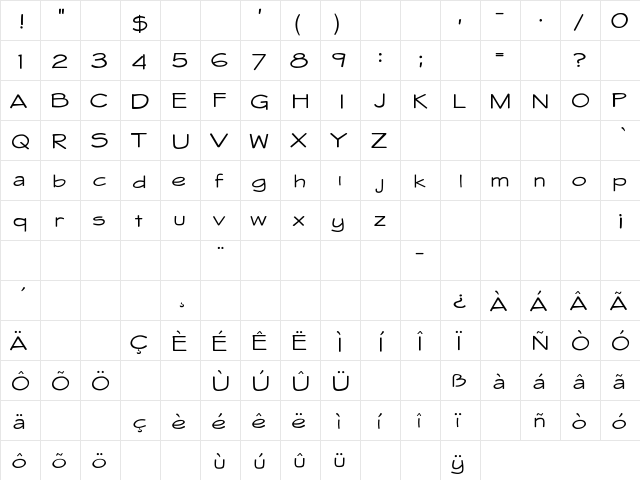
Whitehall Regular
Design Context for Whitehall Typeface
Whitehall takes a measured approach to typography — its balanced proportions and neutral character make it a reliable workhorse for both digital and print work.
Pro Tip: Use Whitehall in both headline and body roles to test its range before committing to a single application.